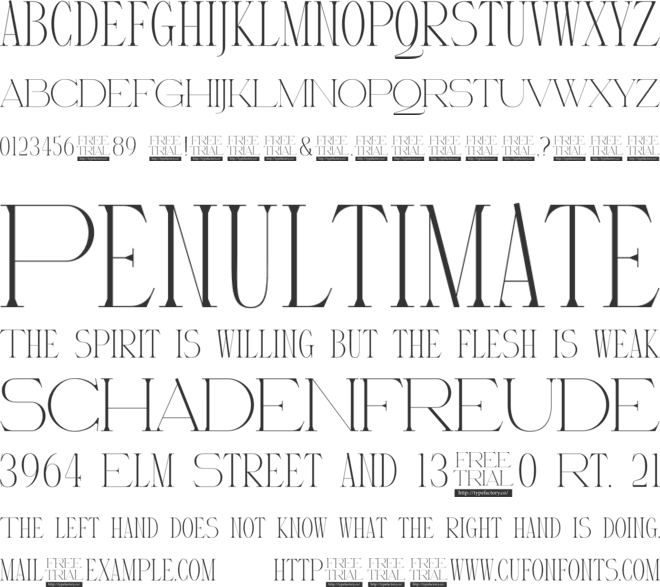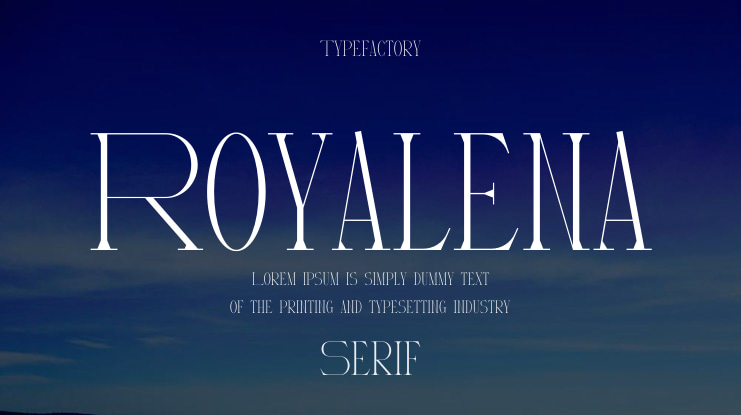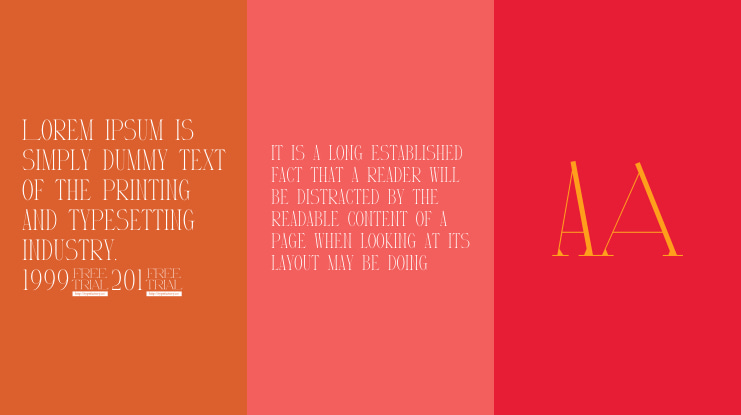
Royalena Font
Royalena is a unique, high-contrast Display Serif typeface that personifies luxury and sophistication. With its extremely tall, slender vertical strokes and elegant, delicately thin serifs, this font is crafted to command attention in large formats. Drawing inspiration from classic high-fashion and luxurious branding, Royalena features sleek, graceful curves and unique letterforms. Perfect for high-end logos, wedding stationery, editorial headlines, and beauty branding, Royalena adds an unforgettable touch of opulence and grace to your projects. Its distinctive character and minimal elegance make it the ideal choice for designers looking to convey quality and refinement. Let Royalena elevate your visuals, ensuring every design feels exquisitely high-class.
Royalena font preview